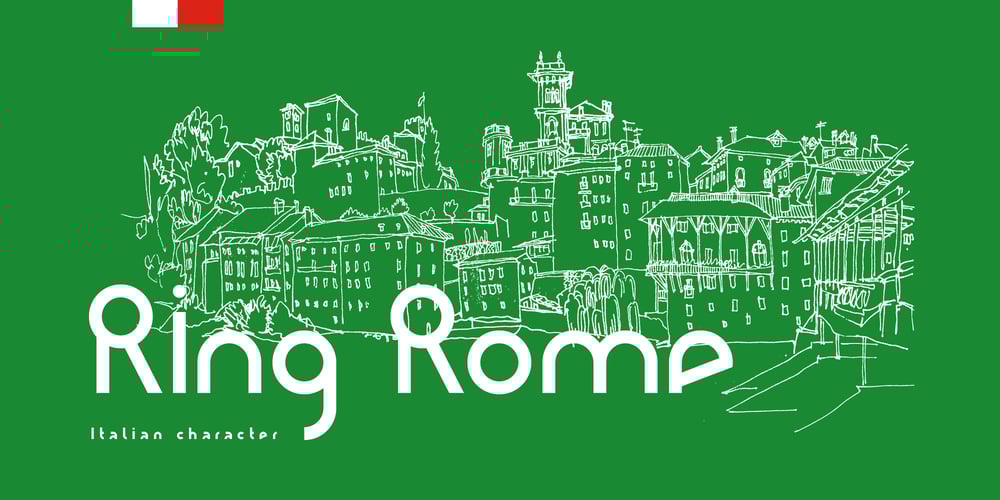
Ring Rome Font Family was designed by Dmitry Ochakov and published by Ochakov. Ring Rome contains 8 styles and family package options. The Renaissance affected change in every sphere of life, but perhaps one of its most enduring legacies are the letterforms it bequeathed to us. Precisely Romanesque style formed the basis of the new font Ring Rome. New addition of the Ring font family is more readable and clear. I’m sure I’ll continue to improve unique Ring font style to allow them to claim a place in type history!The Ring Font Family continues expand solidly!